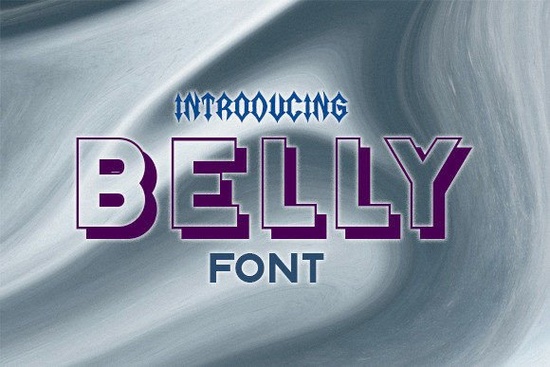
If you’ve been searching for a display font that adds playful depth without losing readability, Belly Font might be exactly what your next project needs. It’s not just another 3D typeface it’s got character, bounce, and charm that works especially well on posters, flyers, packaging mockups, or even t-shirt designs. Whether you’re designing merch for a local event or creating social media graphics with punch, this font holds its own.
What makes Belly stand out is how effortlessly it blends dimension with personality. You don’t need to add drop shadows or gradients manually the 3D effect is built right in. That saves time, which is something every small business owner or print-on-demand seller appreciates. And because it’s designed with bold, rounded letterforms, it stays legible even at smaller sizes or from a distance.
Who should try Belly Font?
This font isn’t limited to one niche. Here’s where it shines:
- Crafters making vinyl decals or heat-transfer designs the thick strokes hold up beautifully when cut.
- Print-on-demand sellers looking for fonts that pop on mugs, totes, or hoodies without needing extra editing.
- Event designers creating birthday banners, baby shower invites, or food truck menus the friendly vibe fits casual celebrations.
- Small businesses wanting eye-catching signage or Instagram story text that feels fun but professional.
It pairs surprisingly well with minimalist layouts too. Try placing it over solid backgrounds or subtle textures no need to compete with busy patterns. If you like the energy of Varsity Football Team but want something less sporty and more universally cheerful, Belly is a smart alternative.
How does it compare to other display fonts?
Not all 3D fonts are created equal. Some feel dated or overly complex. Belly keeps things clean while still delivering visual impact. For example, if you’ve used Blaster Glory, you know how dramatic that style can be great for action themes, but maybe too intense for a bakery flyer. Belly strikes a balance: bold enough to grab attention, soft enough to feel welcoming.
It also avoids the rigid geometry of some retro-inspired fonts like Retro Lettering. Those are fantastic for vintage branding, but Belly brings a modern, squishy charm that feels fresh. Think of it as the typographic equivalent of a plush toy approachable, huggable, and impossible to ignore.
Any tips for pairing it with other fonts?
Absolutely. Because Belly has such a strong presence, pair it with simple sans-serifs or clean scripts. Avoid anything too ornate you don’t want to fight for attention. A good combo? Use Belly for headlines or titles, then switch to something neutral like Helvetica, Montserrat, or even Awesome Newbie for supporting text. The contrast helps guide the viewer’s eye without overwhelming them.
Also worth noting: avoid using Belly in all caps for long paragraphs. It’s meant to be a display font short bursts of impact, not body copy. Stick to titles, buttons, logos, or accent words. That’s where it truly excels.
- Check kerning some letter pairs (like “ly” or “be”) might need slight manual adjustment depending on size.